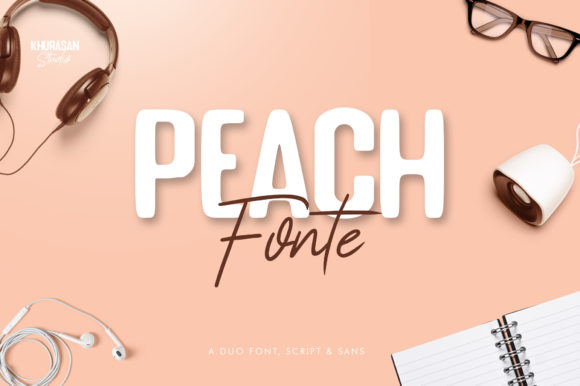
Step into a world of elegance and sophistication with Peach Fonte Font, a mesmerizing duo font crafted by Khurasan. This captivating font family is a fusion of sans serif and script styles, offering a range of possibilities to suit your creative endeavors. Whether you're a designer yearning for the perfect logo font or a content creator seeking to add a touch of allure to your projects, Peach Fonte is the answer.
Immerse yourself in the beauty of Peach Fonte's script font, a graceful dance of curves and flourishes that exudes a timeless charm. Its elegant lines and delicate details evoke a sense of romance and femininity, making it the ideal choice for wedding invitations, branding, and social media graphics. The sans-serif counterpart provides a striking contrast, with its clean and modern lines adding a touch of boldness and structure.
With Peach Fonte at your fingertips, unleash your creativity and explore a myriad of design possibilities. Let your imagination soar as you craft logos that radiate sophistication, social media posts that captivate audiences, and marketing materials that leave a lasting impression. The versatility of Peach Fonte knows no bounds, making it a must-have for any designer's toolkit.
Peach Fonte is not just a font; it's an artistic expression that transforms your designs into masterpieces. Its enchanting aura adds a touch of magic to your projects, evoking emotions and capturing hearts. Embrace the allure of Peach Fonte and embark on a creative journey that will leave you breathless.